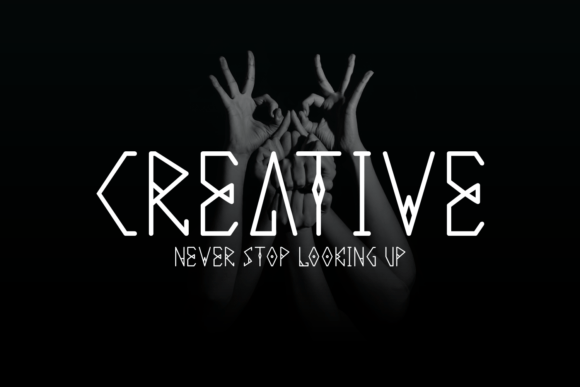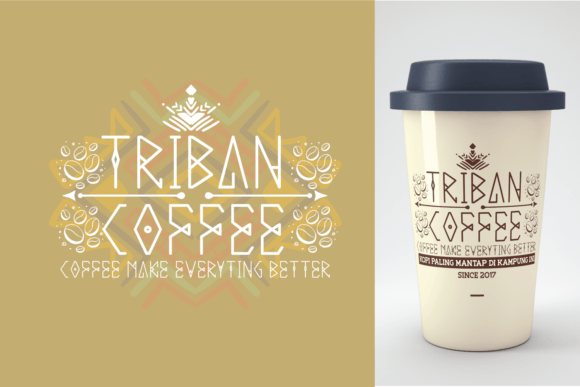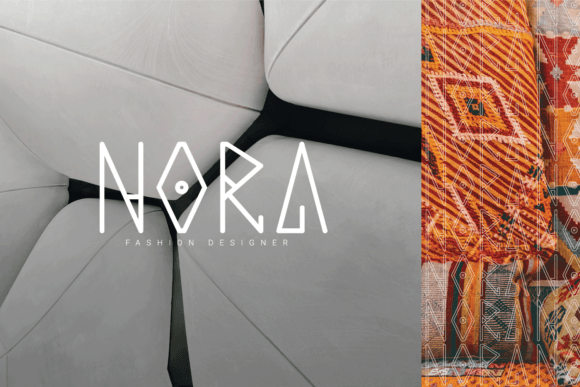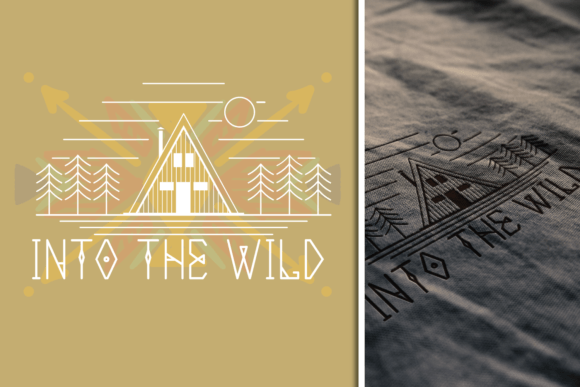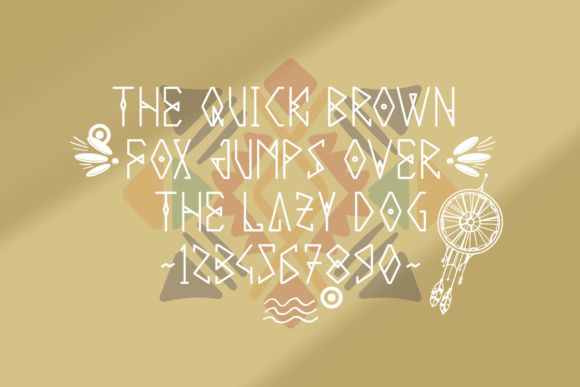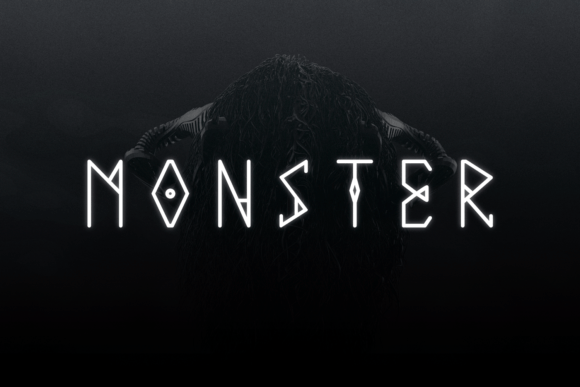
Introduction to Garked Font
Have you ever been stuck in front of a blank screen, staring at a blank slate, waiting for the perfect font to spark your creativity? For designers, this moment is all too familiar. But what if that spark came in the form of an ancient Nordic rune? Enter the Garked Font, a stunning display typeface inspired by the mystical symbols of the Vikings.
As a valuable design resource, the Garked Font is perfect for creative projects that require a touch of Norse mythology or Viking flair. With its unique, intricate design, it’s sure to elevate your headlines and make a lasting impression on your audience. And the best part? It’s a free download, allowing you to experiment with this high-quality font without breaking the bank. Whether you’re working on a design project or simply looking for a unique design element, the Garked Font is a must-have in your arsenal.
Key Features of Garked Font
- Unique, modern design with a transparent background for versatile use in various applications.
- Designed at a high resolution (300 DPI) for crisp and clear display on various devices and screens.
- Perfect for use in digital design, graphic design, and print projects where a modern and sleek font is required.
Honest Review: Garked Font
I recently stumbled upon the Garked Font while searching for a design resource for my latest creative project. As a designer, I’m always on the lookout for high-quality fonts that can elevate my designs.
- Unique and stylish design: The Garked Font has a distinctive look that can add a touch of sophistication to any design.
- Transparent background: This feature allows for easy customization and integration with other design elements.
- Limited character set: The font seems to be limited to a basic character set, which may not be suitable for complex designs or text-heavy projects.
- No bold or italic styles: The font is only available in regular weight, which may not provide enough flexibility for certain design applications.
Overall, I’m impressed with the Garked Font’s unique design and free availability. However, its limitations may make it less suitable for certain design projects. As a design resource, it’s still worth exploring, especially for simple designs or creative projects where a distinctive font can make a big impact.
Tips for Getting the Most Out of Garked Font
For best results, use Garked Font on a transparent background to create a unique and eye-catching design. Experiment with different font sizes and styles to find the perfect look for your creative project.
Garked Font is perfect for creating social media graphics, presentations, and documents that require a high-quality and creative design. It’s also a great option for designers and artists who need a versatile and free design resource.